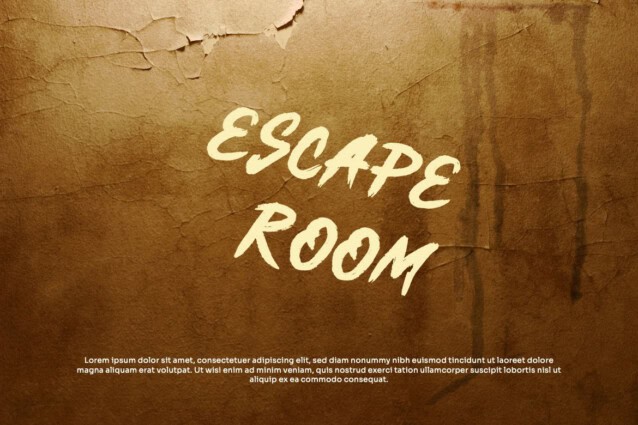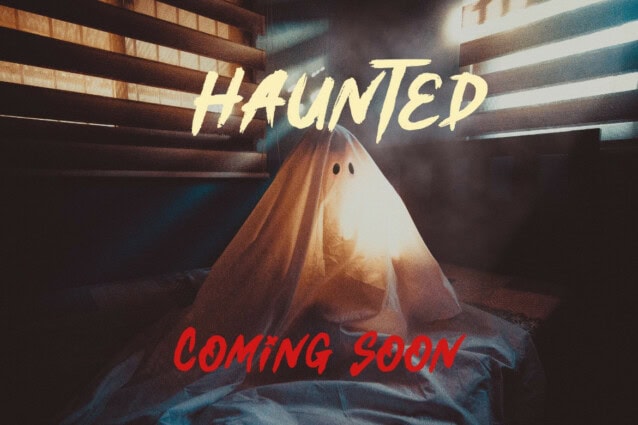
Slither Halows Font
Slither Halows Font – A horror display font that’s sure to make a statement. Its jagged, irregular letterforms evoke a sense of fear and unease, making it the perfect choice for horror movie posters, book covers, and Halloween-themed designs.